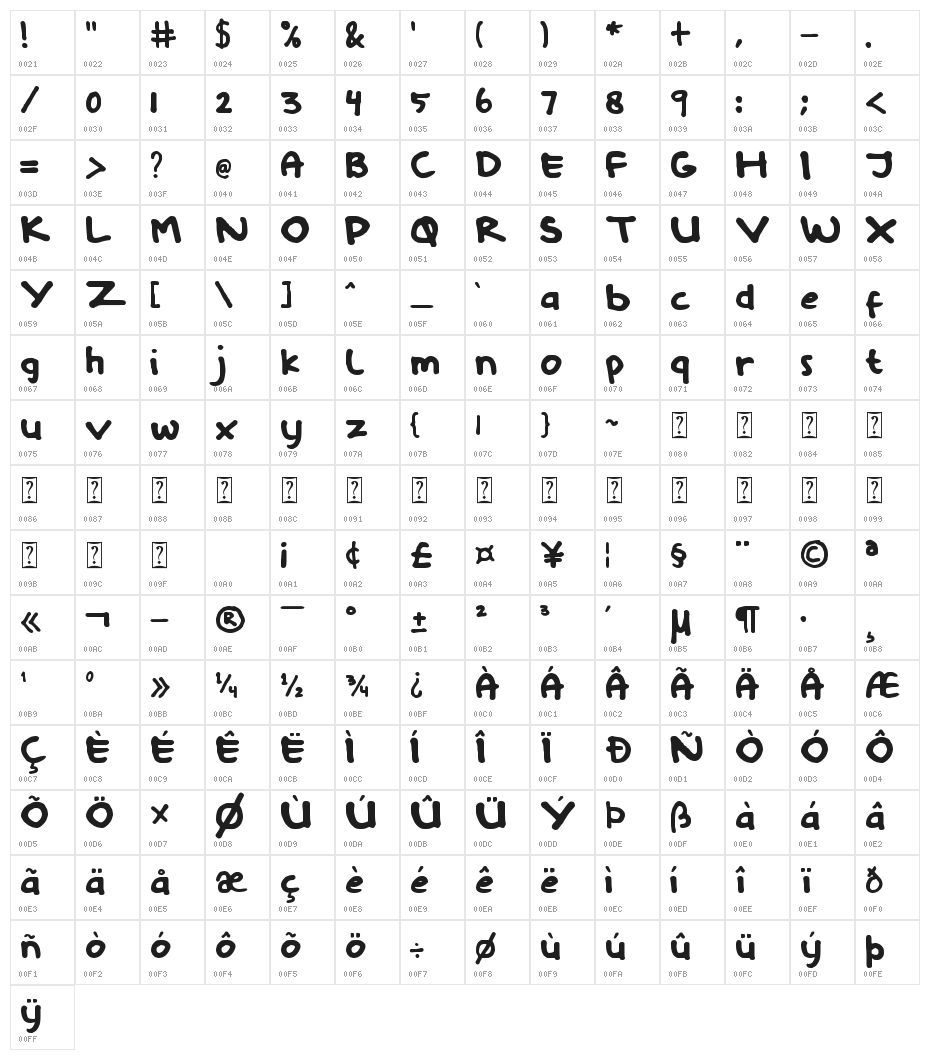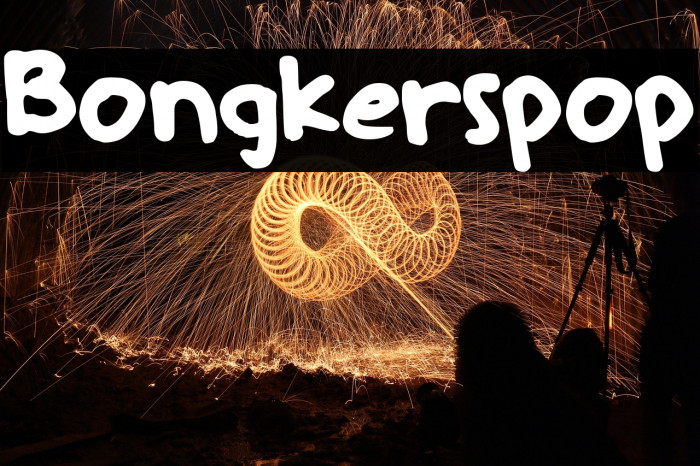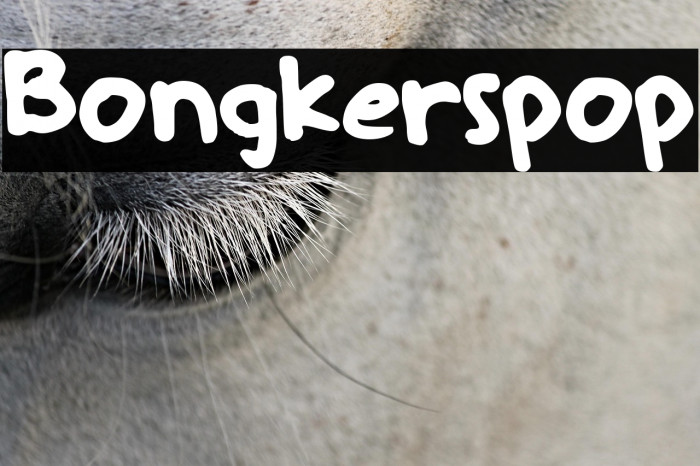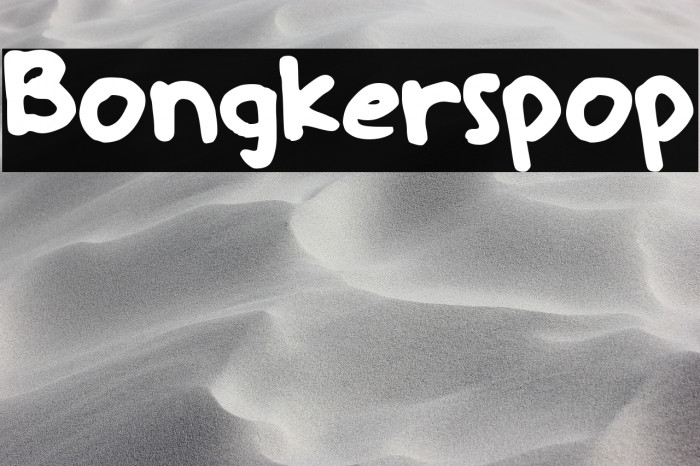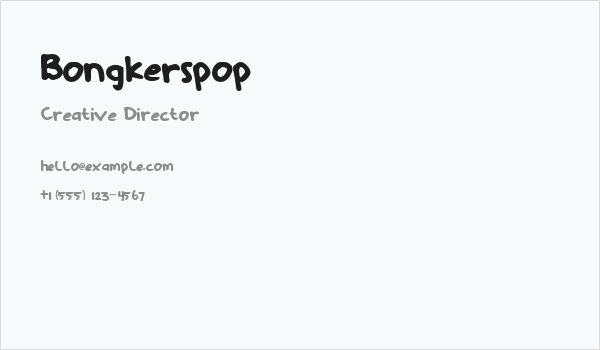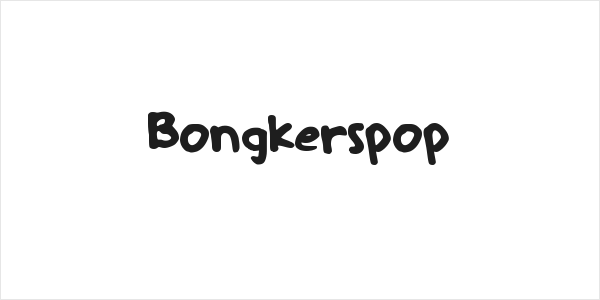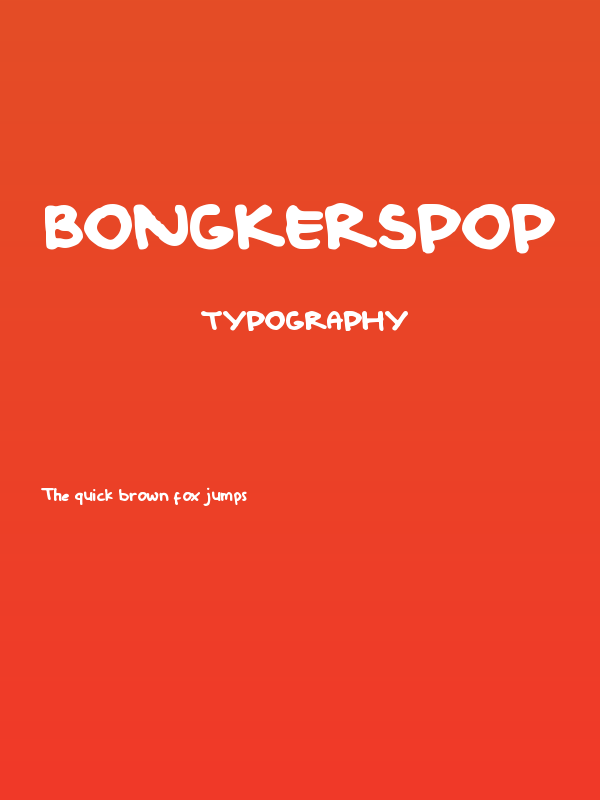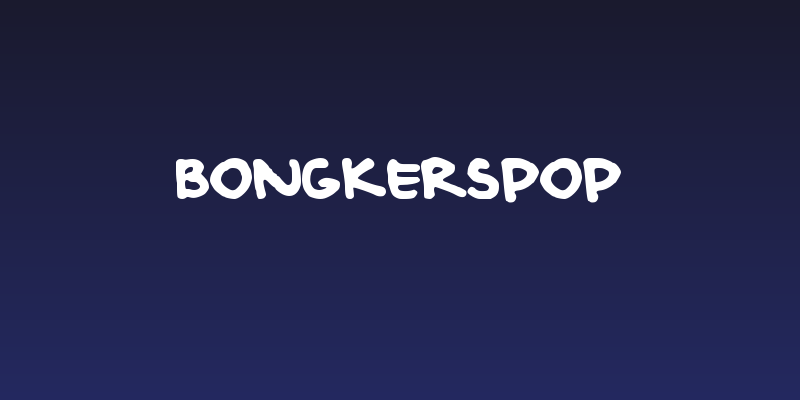
Bongkerspop Font
Bongkerspop Description
This playful and bold font features a handwritten style with a casual, friendly appearance. The characters are rounded and slightly irregular, giving it a whimsical and approachable feel. The uppercase and lowercase letters maintain a consistent style, with a slightly exaggerated thickness that adds to its charm. Numbers and special characters are equally expressive, making this font versatile for creative projects. Its informal style is perfect for adding a touch of personality and fun to any design.
| Proposed Projects | Ideal for children's books, playful branding, greeting cards, and casual posters. |